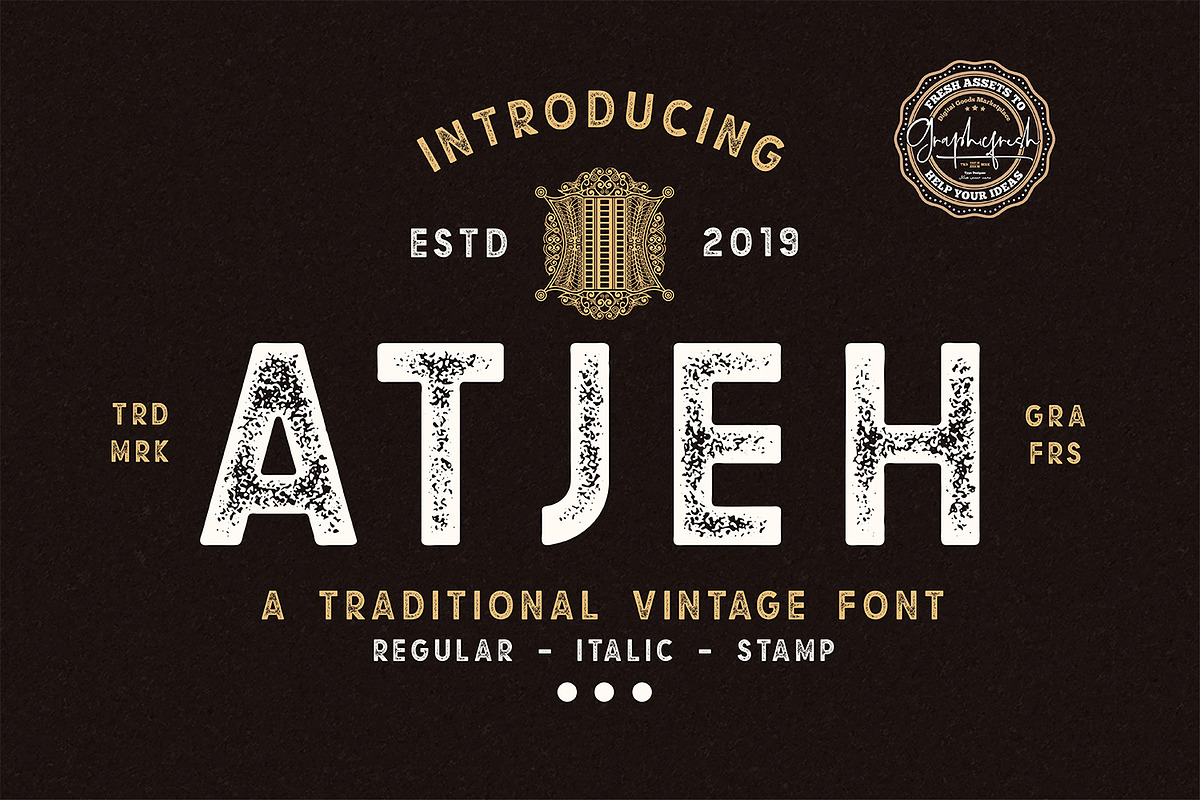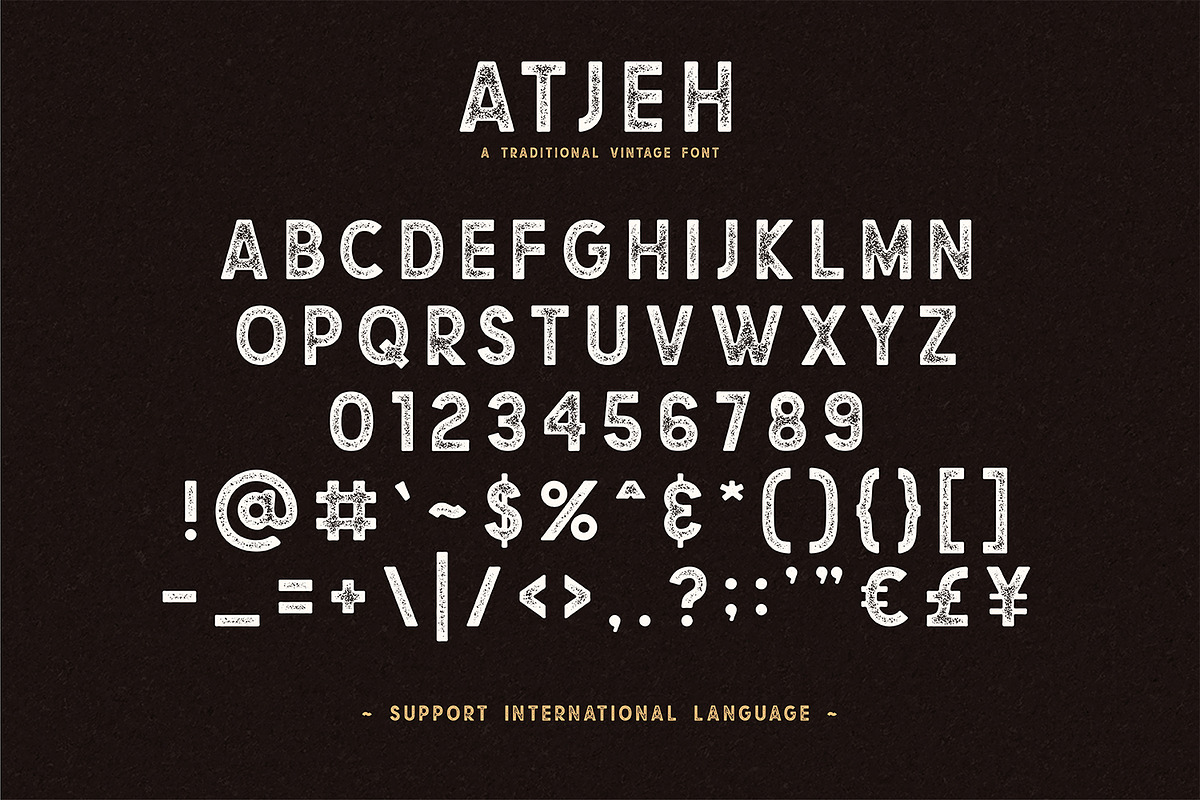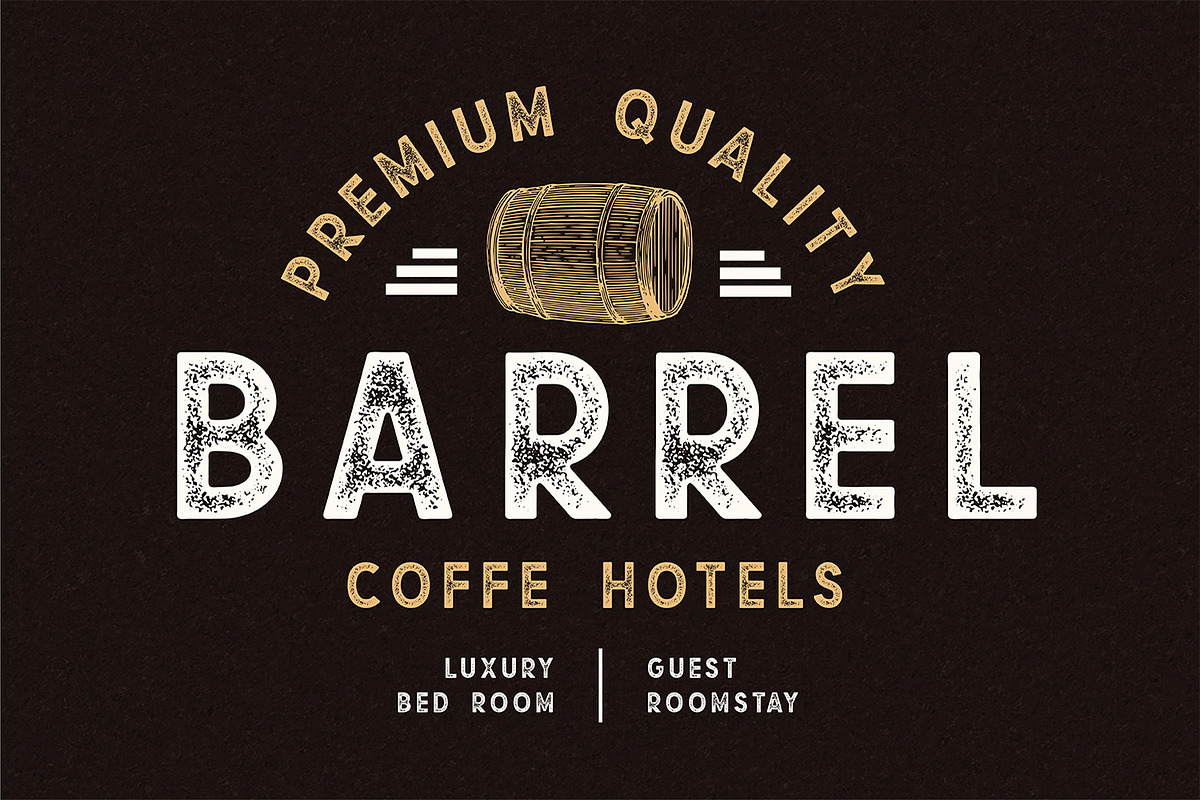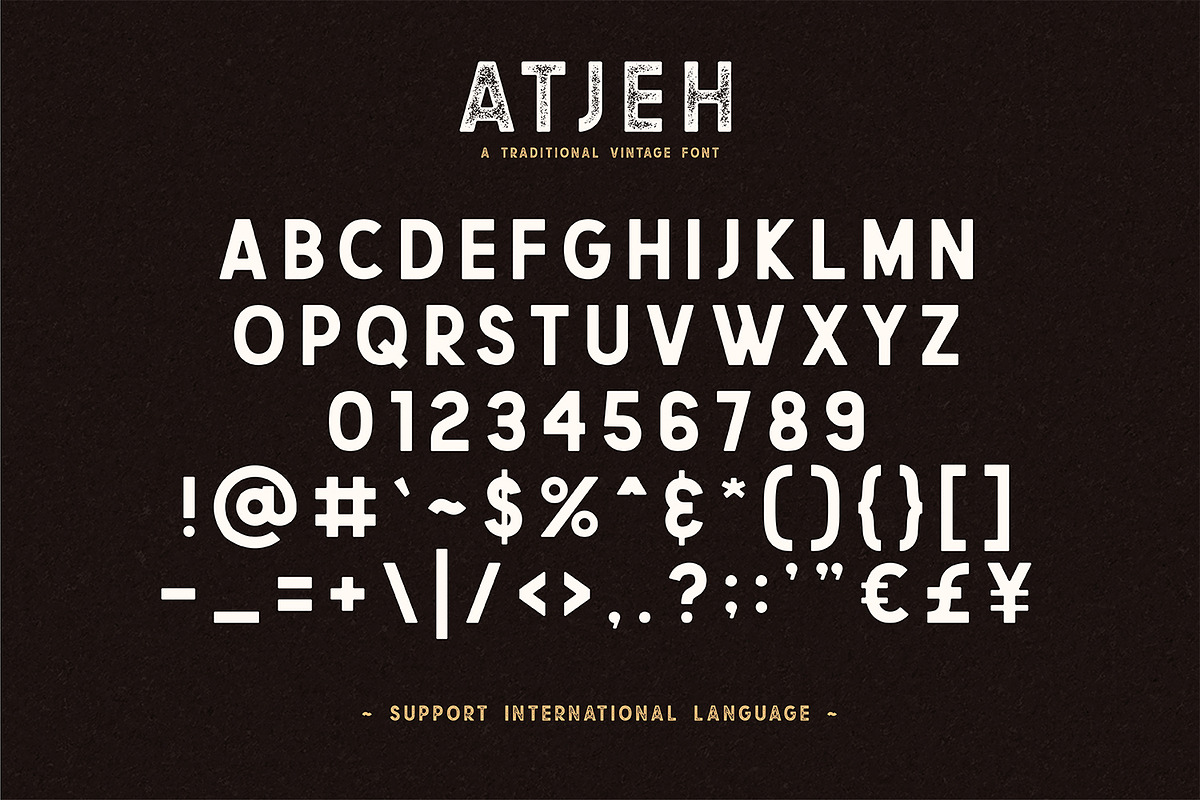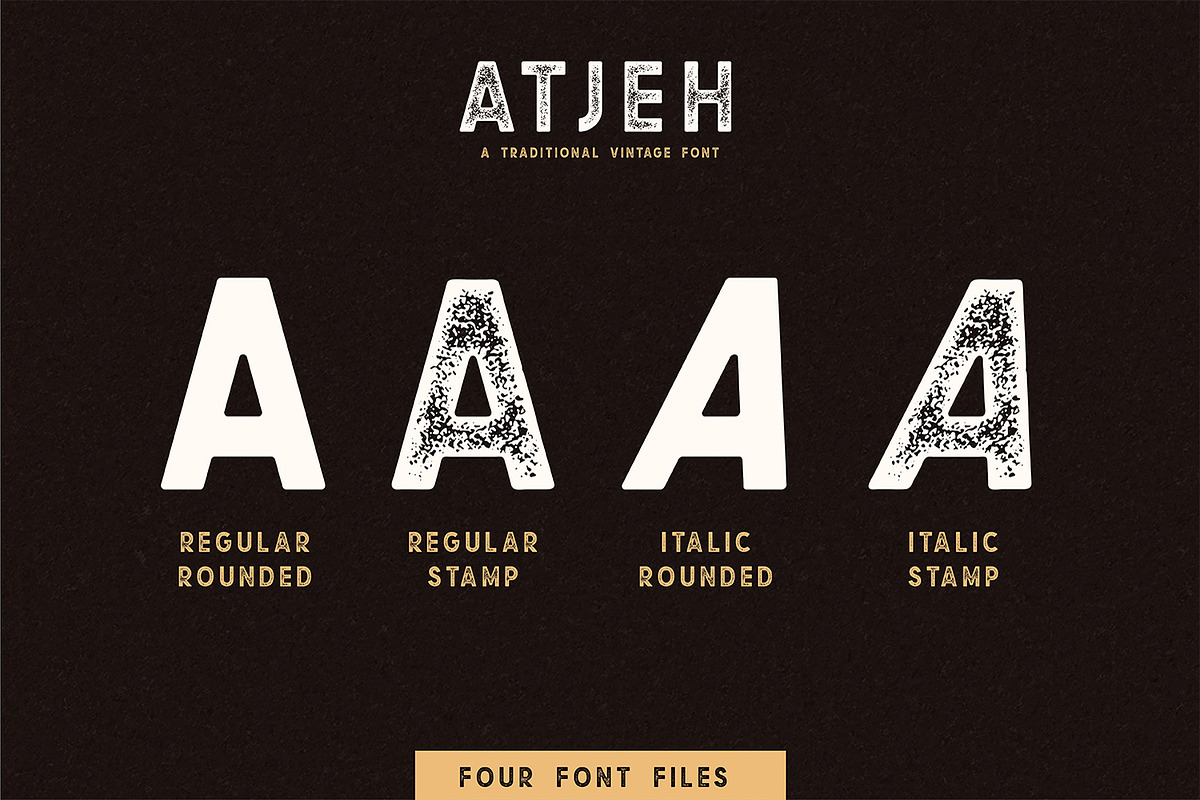
Atjeh - A Traditional Vintage Font
Atjeh is a traditional vintage display family including Regular and Textured versions as well as Italic versions of each. it's perfect for logos, name card, magazine layouts, invitations, headers, or even large-scale artwork. Atjeh includes 4 OTF & TTF files within the Zip folder.
Punctuation and Number
Multilingual Language